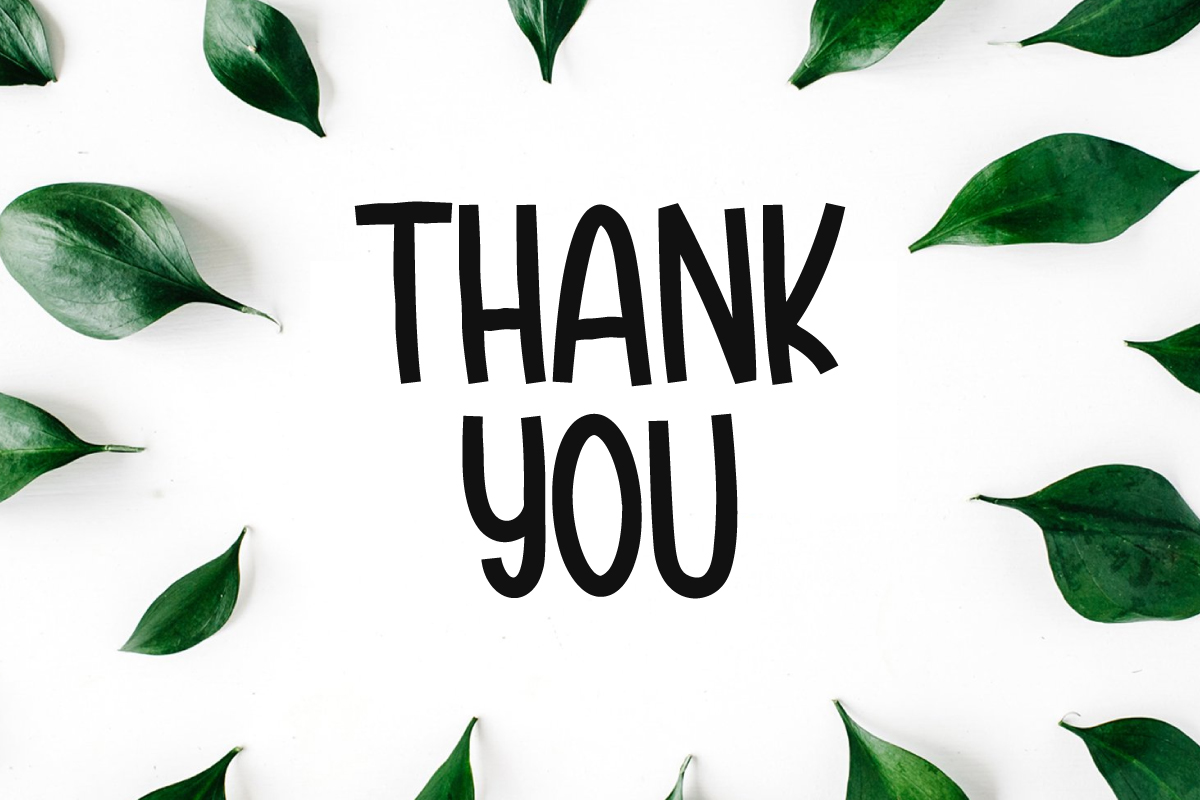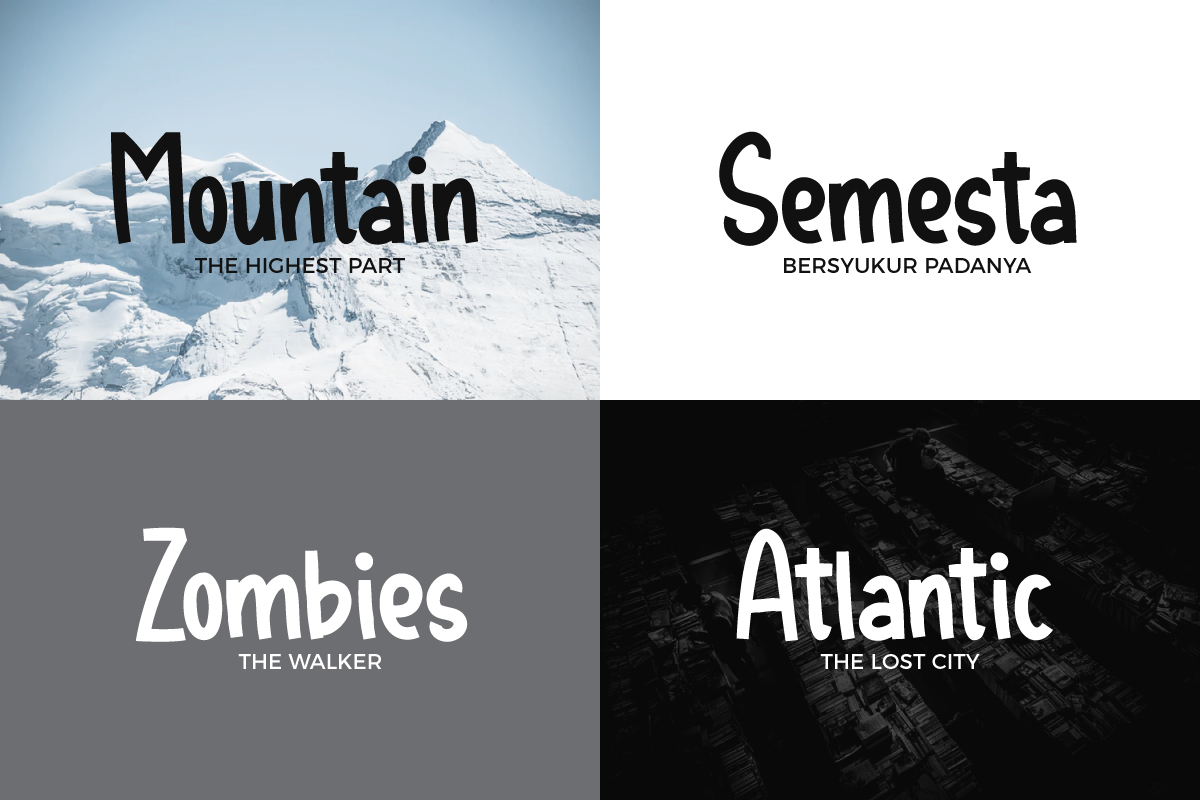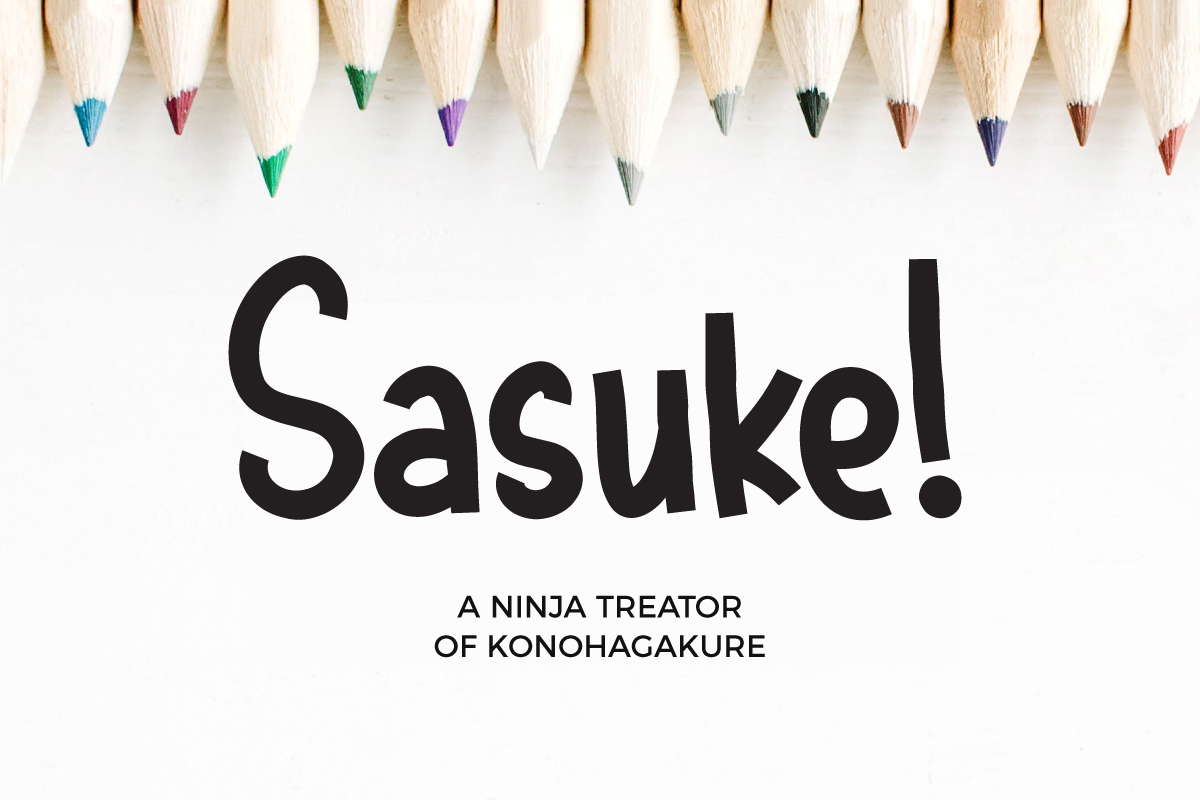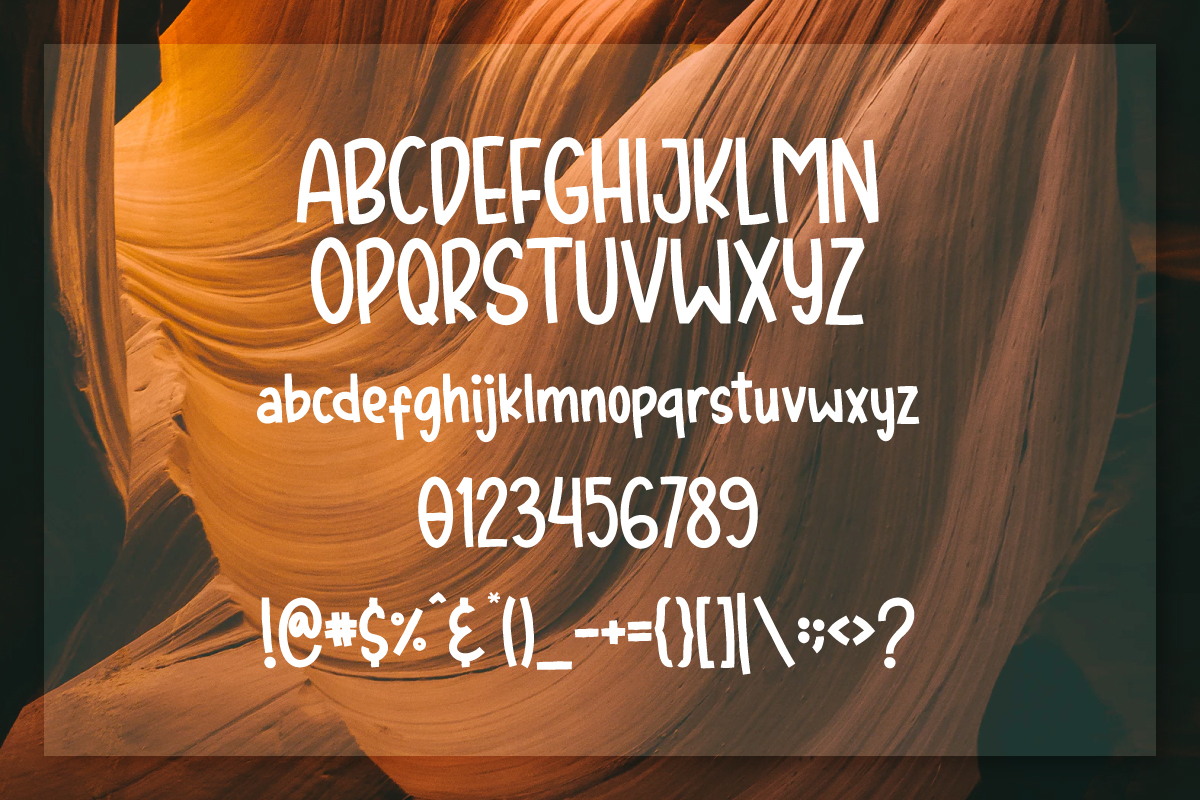
Genjutsu Font
About Genjutsu Font
Genjutsu is a stunner; this handwritten sans serif typeface is completely fresh yet playful. Genjutsu is suited to a wide range of digital and print projects, and its legibility lends it to both headlines and body text applications.